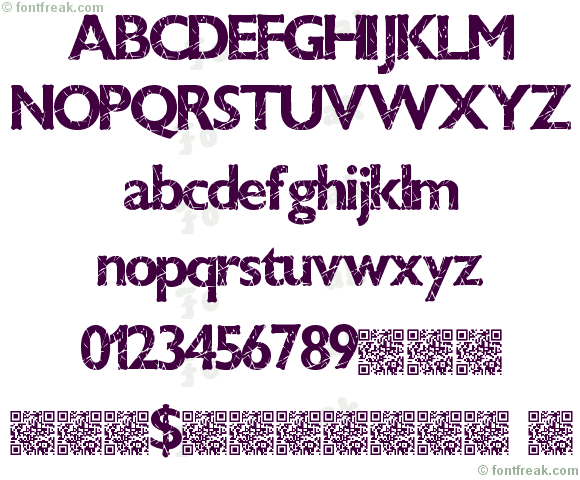
WindowCrash
WindowCrash by XEROGRAPHER FONTS is a distinctive display font that captures attention with its unconventional design. This font features a playful, slightly rugged aesthetic that conveys a sense of whimsy and creativity. The stroke weight varies, giving it a dynamic quality that enhances its visual impact. With a medium contrast and irregular spacing, WindowCrash feels both energetic and approachable, making it a versatile choice for various design applications.
Ideal for use in creative projects, WindowCrash shines in contexts such as movie posters, where its unique character can draw viewers in. It's also perfect for graphic novels or comic book covers, adding an element of fun and excitement. Additionally, this font works well for restaurant menus, particularly those looking to convey a casual, inviting atmosphere. Small business owners can leverage WindowCrash for branding materials, such as flyers or promotional graphics, to stand out in a crowded marketplace. Content creators will find it suitable for social media graphics, where eye-catching typography is key to engagement.
What sets WindowCrash apart is its ability to blend creativity with functionality. It stands out not just for its unique visual style, but also for its versatility across various mediums. Whether you’re designing a quirky advertisement or crafting a memorable logo, the WindowCrash font free download allows users to inject personality and flair into their work, making it a fantastic choice for innovative design projects.